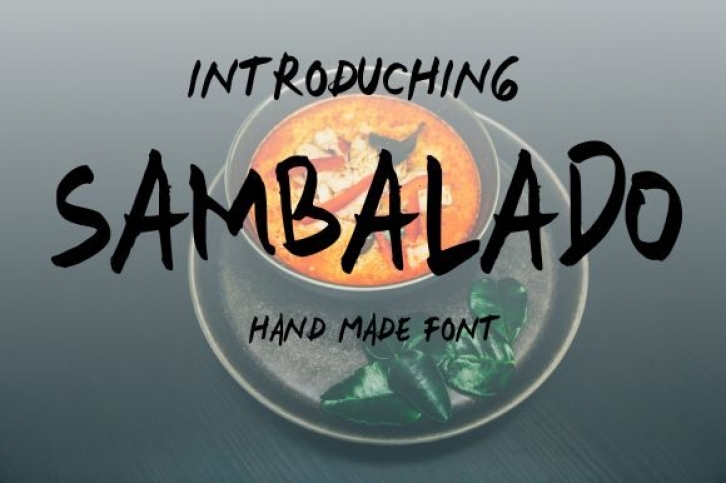
Smbalado is a brand new display font that is ready to be used in your new projects.
With a stylish design this font is ideal for magazine covers, headlines, posters and much more.